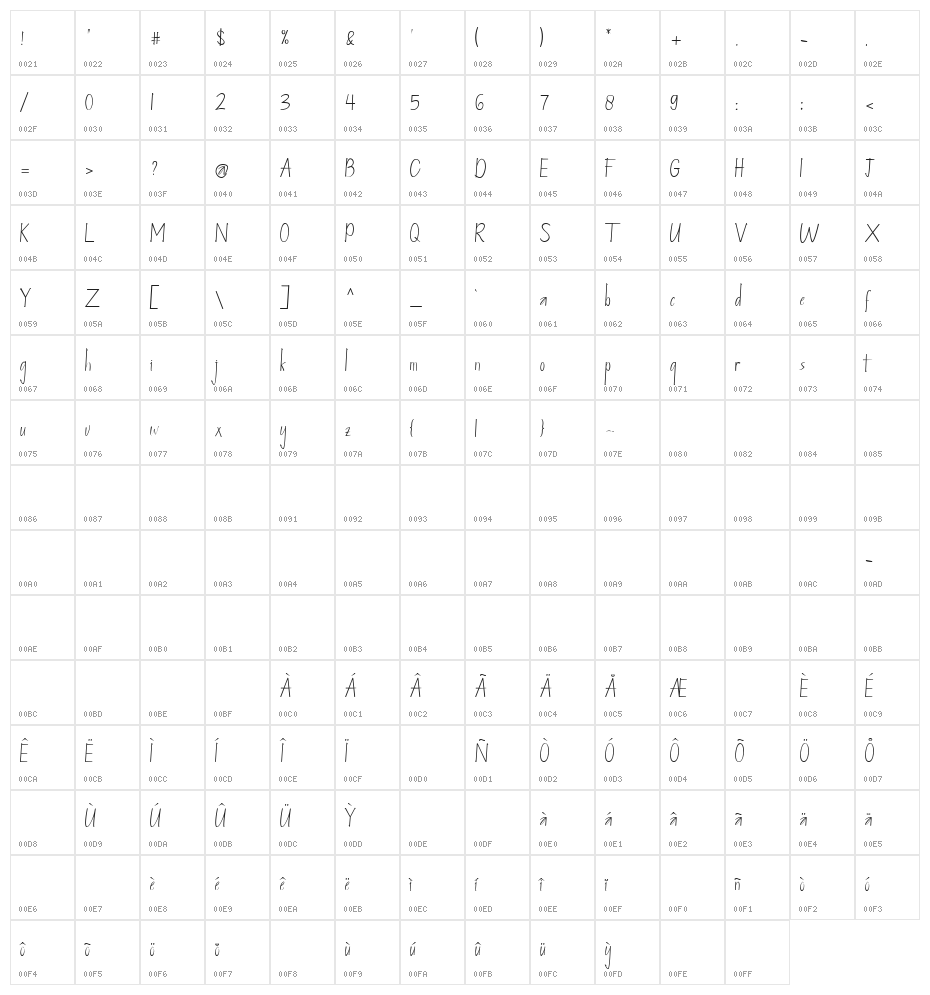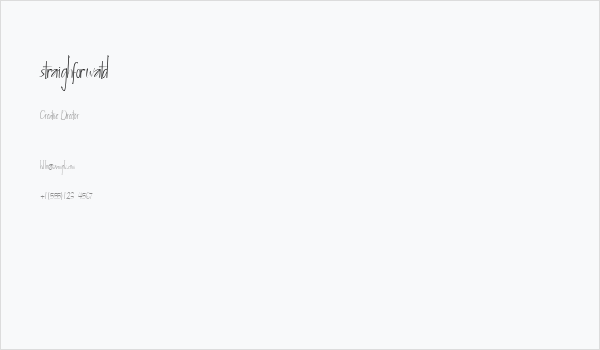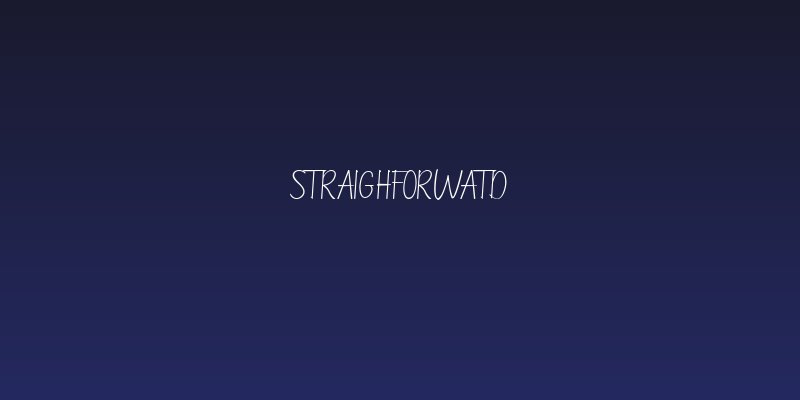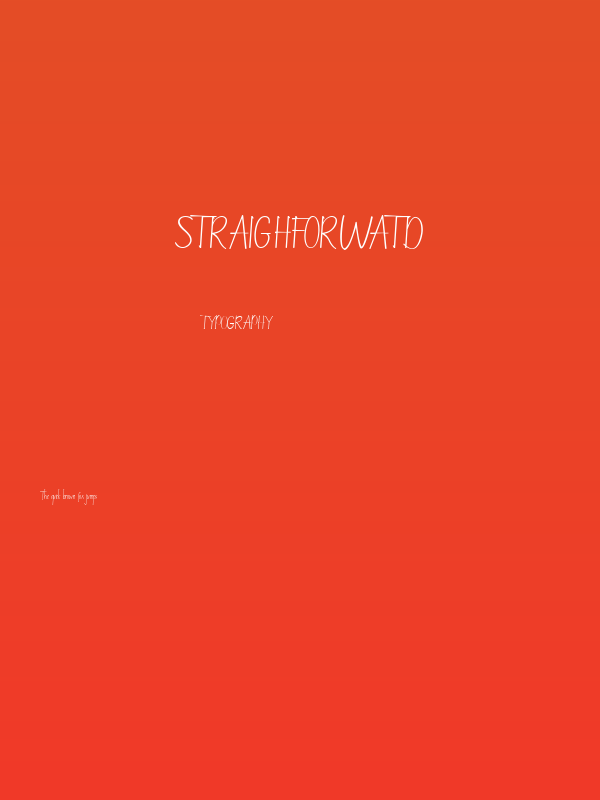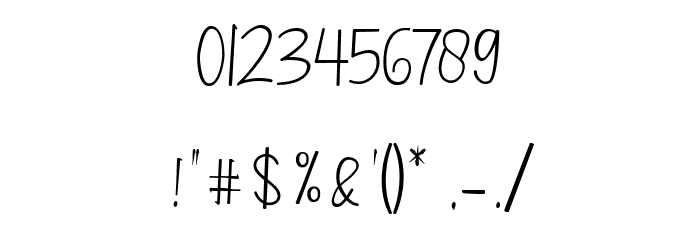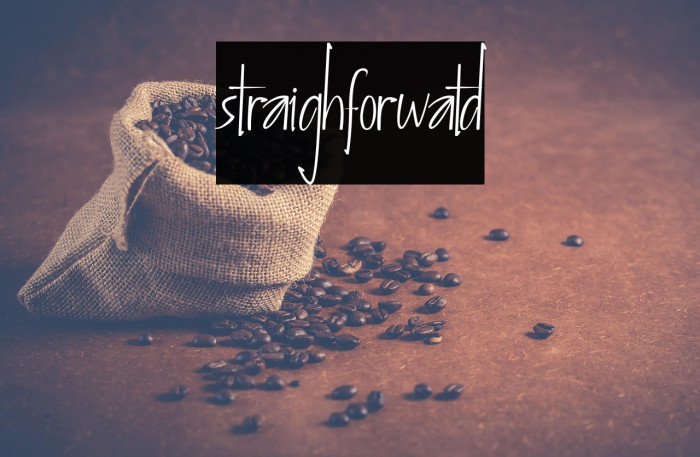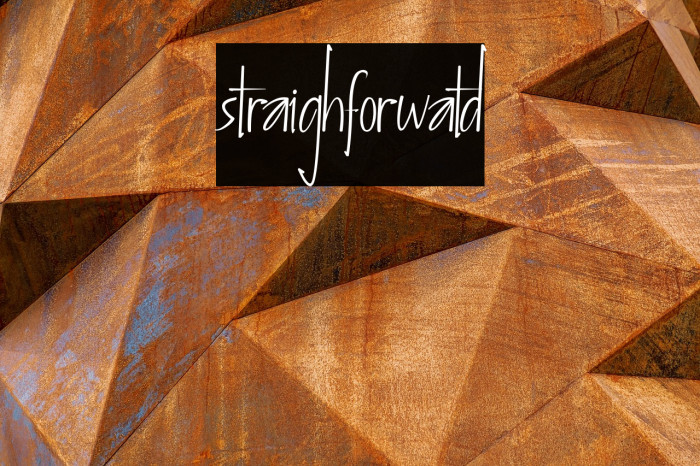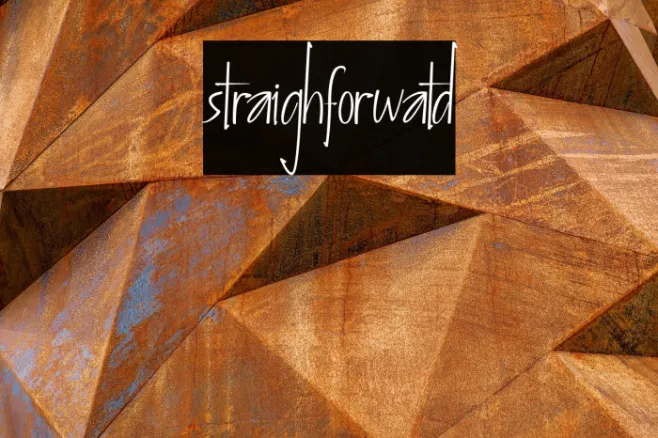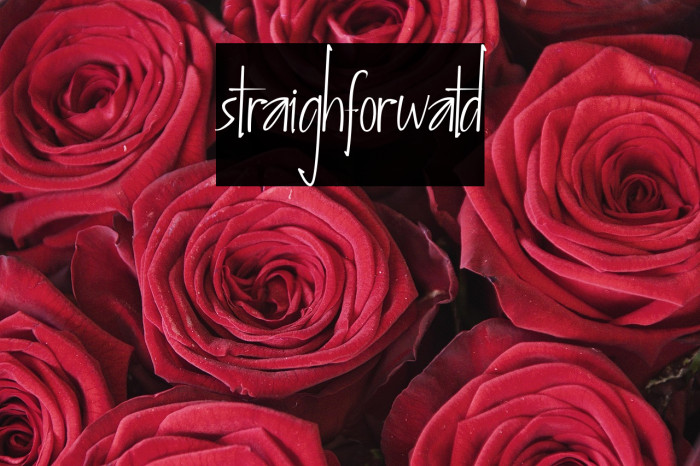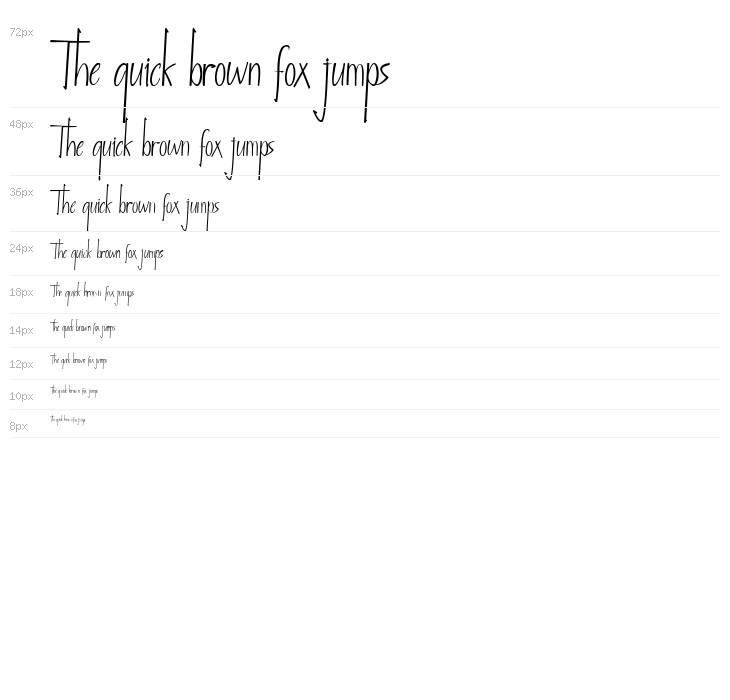
straighforwatd Font
straighforwatd Description
This font features a playful and casual handwritten style, characterized by its tall and narrow letterforms. The strokes are smooth and slightly curved, giving it a friendly and approachable appearance. The uppercase letters are consistent in height, while the lowercase letters have a slight variation, adding to the informal feel. The numerals are aligned with the uppercase letters, maintaining a cohesive look. Special characters are included, matching the overall style with a touch of whimsy. This font is ideal for projects that require a personal touch, such as invitations, greeting cards, or creative branding.